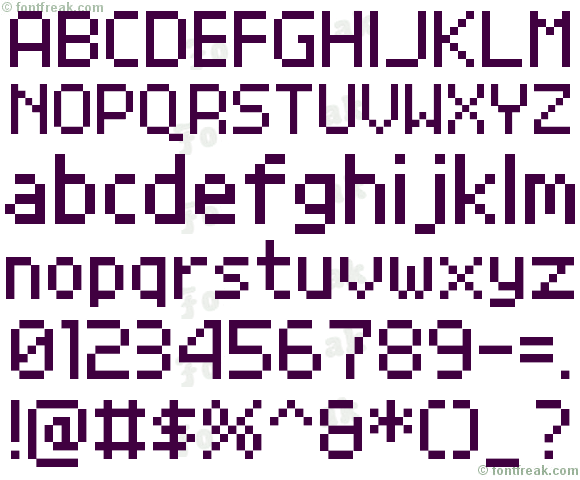
Grand9K Pixel Regular
About Grand9K Pixel Regular
Grand9K Pixel Regular is a distinctive display font that stands out for its unique pixelated design, making it an excellent choice for various creative projects. Designed by Jayvee Enaguas, this font embodies the retro charm of early digital typography, characterized by its blocky and pixel-like structure. The stroke weight is consistent throughout, giving it a sturdy, uniform appearance. The tight spacing between characters enhances its compactness, while the absence of decorative elements keeps the focus on its clear, bold form.
This font is particularly well-suited for use cases that require a modern yet nostalgic aesthetic. It works wonderfully for video game graphics, lending an authentic touch to retro-themed designs. Additionally, Grand9K Pixel Regular can be effectively utilized in album covers, making it perfect for musicians looking to capture a vintage vibe. Its pixelated style also makes it an engaging choice for website headers and tech-related branding, where a modern, digital feel is desired. Content creators and graphic designers will find this font ideal for social media graphics, particularly in posts that aim to evoke a sense of nostalgia or playfulness.
Ultimately, what sets Grand9K Pixel Regular apart is its ability to blend retro aesthetics with modern design sensibilities. This makes it not just a font, but a versatile tool for storytelling in visual communication. Whether you're designing a project for a contemporary audience or revisiting nostalgic themes, this font is sure to make a lasting impact.